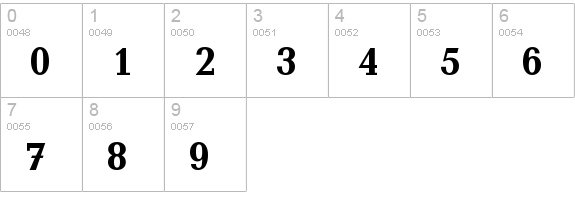
Canyon-Bold Font Details
Canyon-Bold is a strong, high-contrast variant in the Canyon typeface family \xE2\x80\x94 well suited to headlines, attention-grabbing titles, and strong calls-to-action.
Canyon-Bold is a striking and bold typeface that commands attention with its strong presence and robust design. With its thick strokes and sharp angles, this font exudes confidence and power, making it perfect for headlines, titles, and other eye-catching text. The modern and edgy aesthetic of Canyon-Bold adds a touch of sophistication to any design project, making it a versatile choice for both print and digital applications. What makes Canyon-Bold even more appealing is that it is available for free download at FontsMarket.com. This means that you can easily access this high-quality font without any cost, allowing you to enhance your work with a professional and impactful typeface. Whether you're working on a branding project, a poster design, or a website layout, Canyon-Bold is sure to make a bold statement and leave a lasting impression on your audience. Enhance your typography game today with Canyon-Bold - the free font that packs a punch.